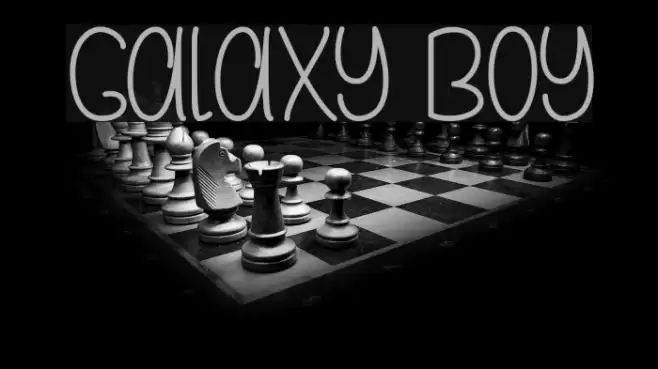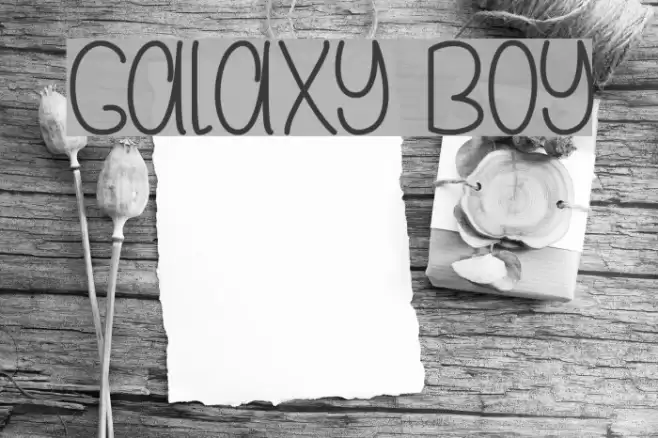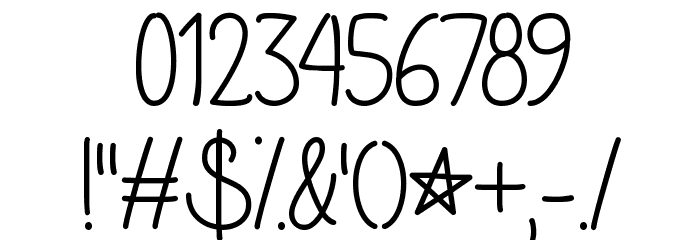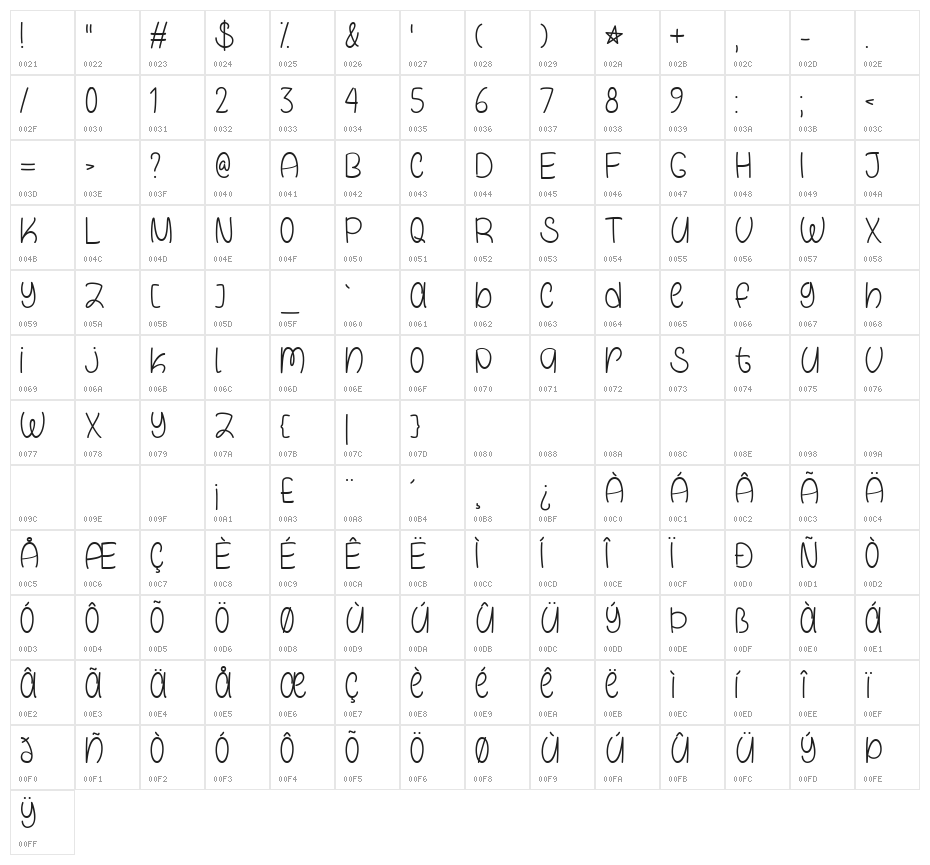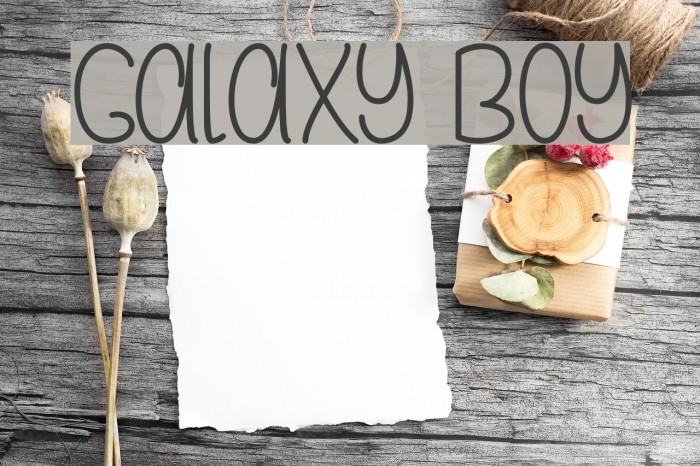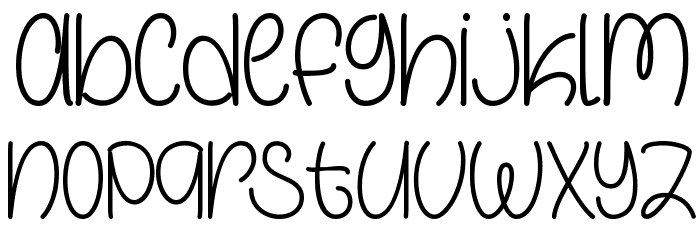
Galaxy Boy Font
Galaxy Boy Description
This playful and whimsical font features rounded, flowing letters that give it a friendly and approachable appearance. The uppercase and lowercase characters maintain a consistent style, with smooth curves and a slightly informal feel. The numbers and special characters are designed to match the overall aesthetic, making it versatile for various uses. Its unique style is reminiscent of handwriting, yet maintains a clear and legible structure. The font's charm lies in its simplicity and the subtle variations in stroke width, which add a touch of personality without compromising readability.
A playful, rounded font with a whimsical, handwritten style from Handwritten fonts.
- Proposed Projects: Ideal for children's books, playful branding, greeting cards, and casual invitations.
- Overall Style: Playful
- Use Case: Headlines, Logos, Informal Text